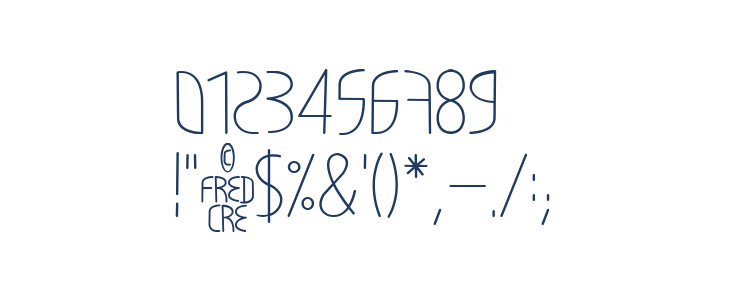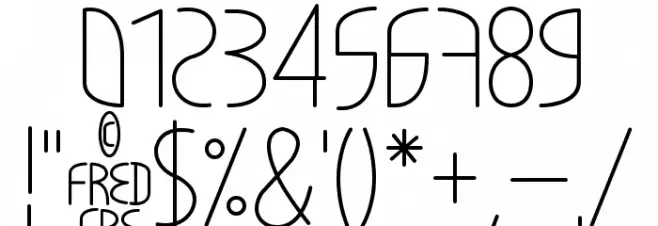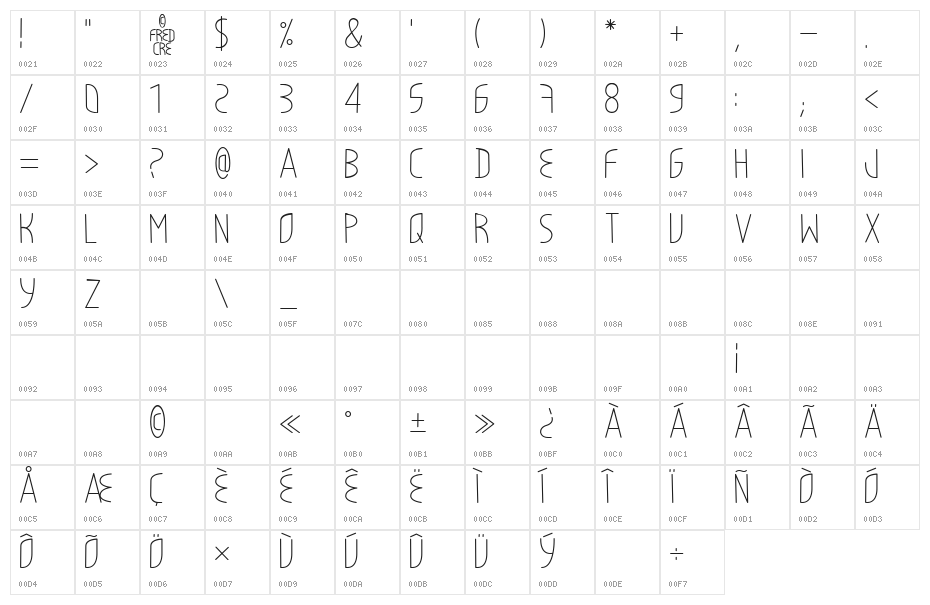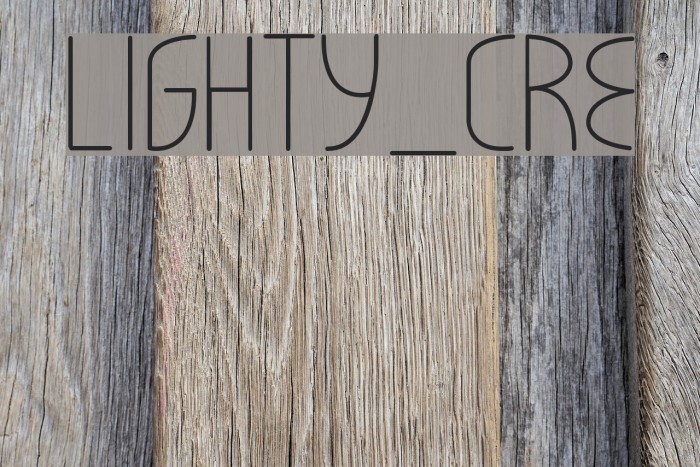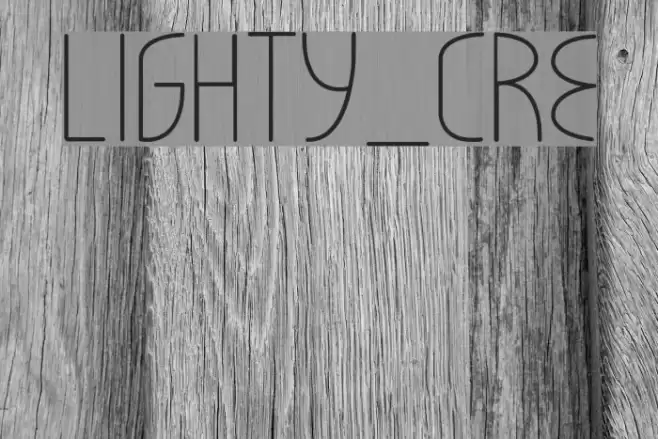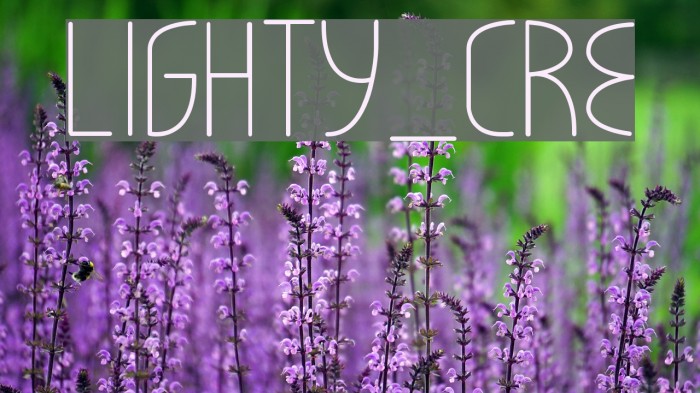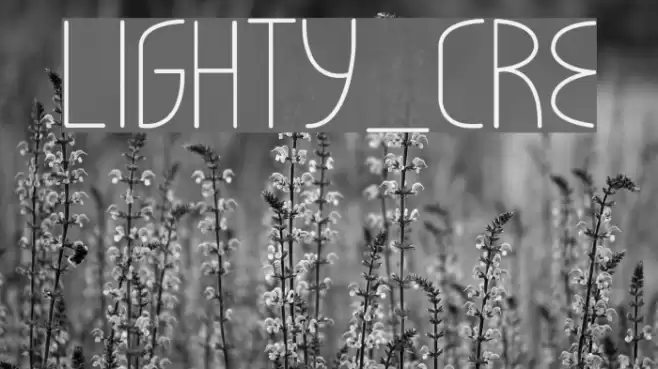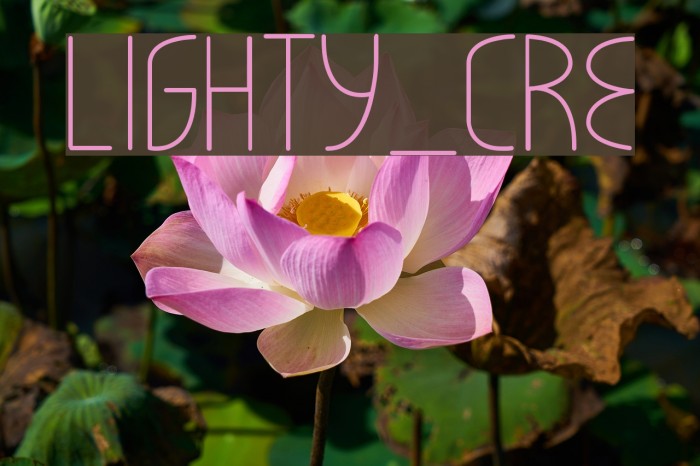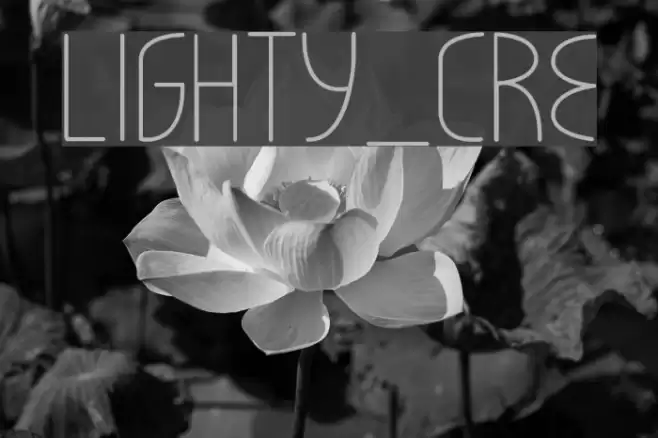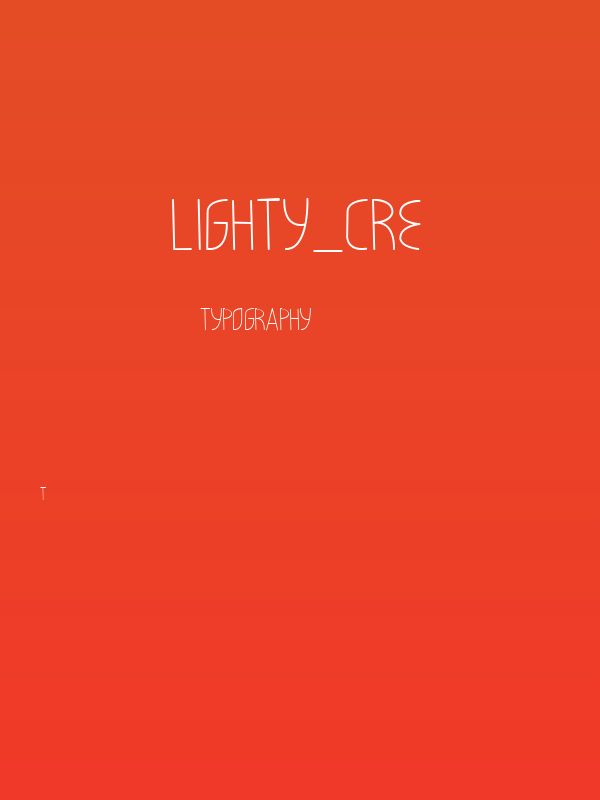
LIGHTY_CRE Font
LIGHTY_CRE Description
This font features a clean and modern design with a geometric structure. The characters are tall and narrow, giving it an elegant and sophisticated appearance. The lines are thin and consistent, providing a sleek and minimalistic look. The uppercase and lowercase letters maintain a uniform style, with rounded edges that soften the overall aesthetic. The numerals are distinct and easy to read, complementing the alphabetic characters. Special characters are included, maintaining the same thin line weight and geometric form, ensuring versatility in various design applications.